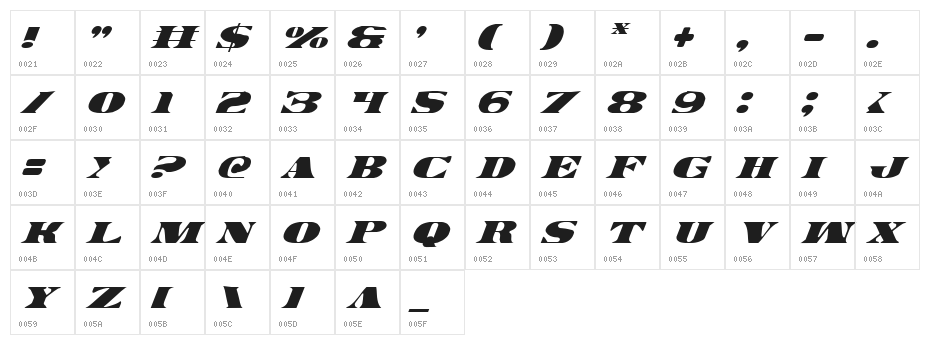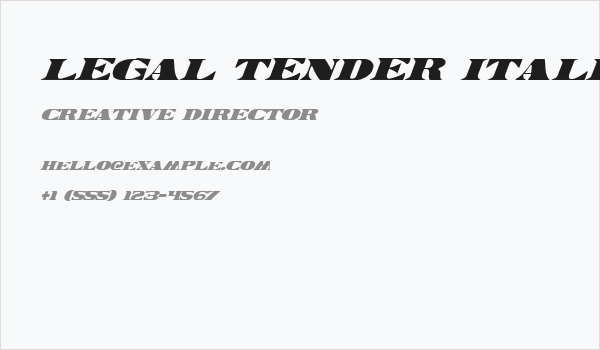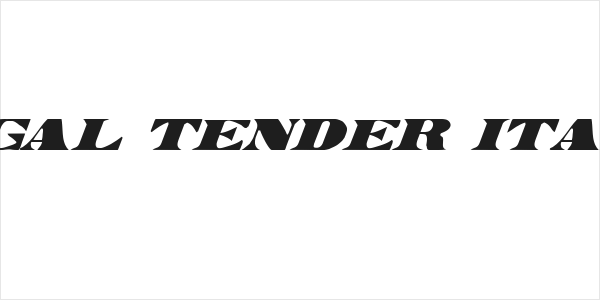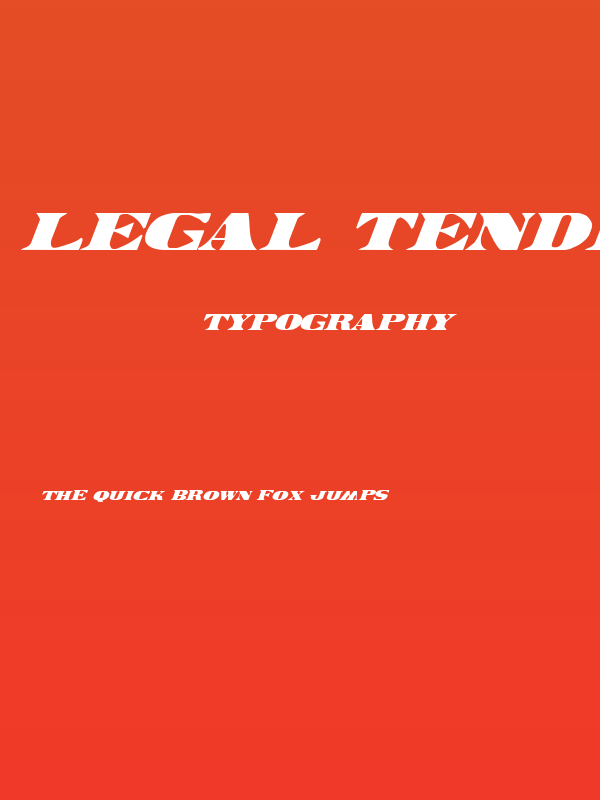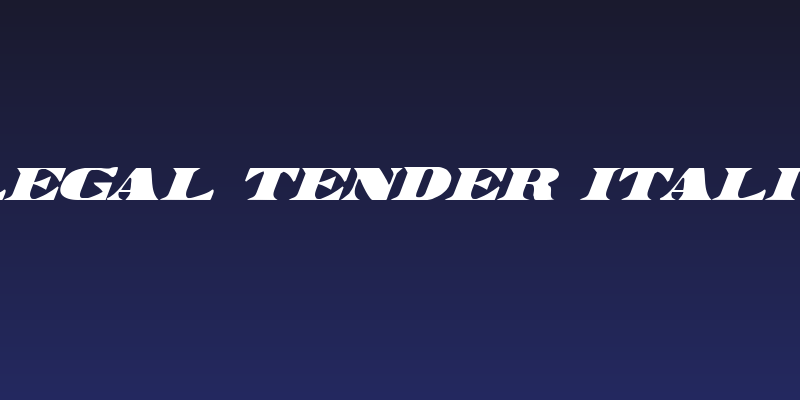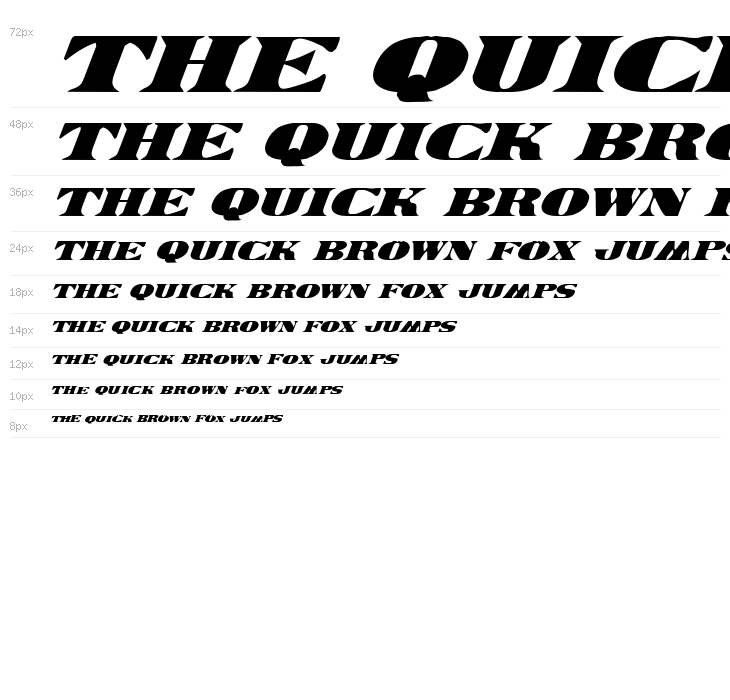
Legal Tender Italic Font
Legal Tender Italic Description
This font exhibits a bold, italicized style with a strong presence. The characters are slanted, giving a sense of motion and dynamism. The strokes are thick and consistent, creating a robust and impactful appearance. The uppercase and lowercase letters maintain a uniform style, with sharp angles and a slightly condensed form. The numbers and special characters follow the same bold and italicized design, ensuring consistency across all elements. This font's distinctive style makes it suitable for attention-grabbing applications.
| Proposed Projects | Ideal for headlines, posters, branding, and any design requiring a strong visual impact. |